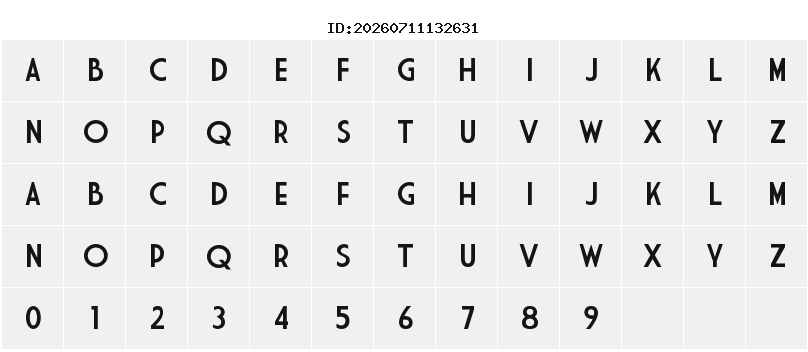
• Font Name: Market Deco
• Full Font Name: Market Deco
About Market Deco.ttf
Market Deco.ttf is a modern, elegant sans-serif font designed for ultimate readability and visual harmony. Perfect for branding, headlines, web design, and print materials.